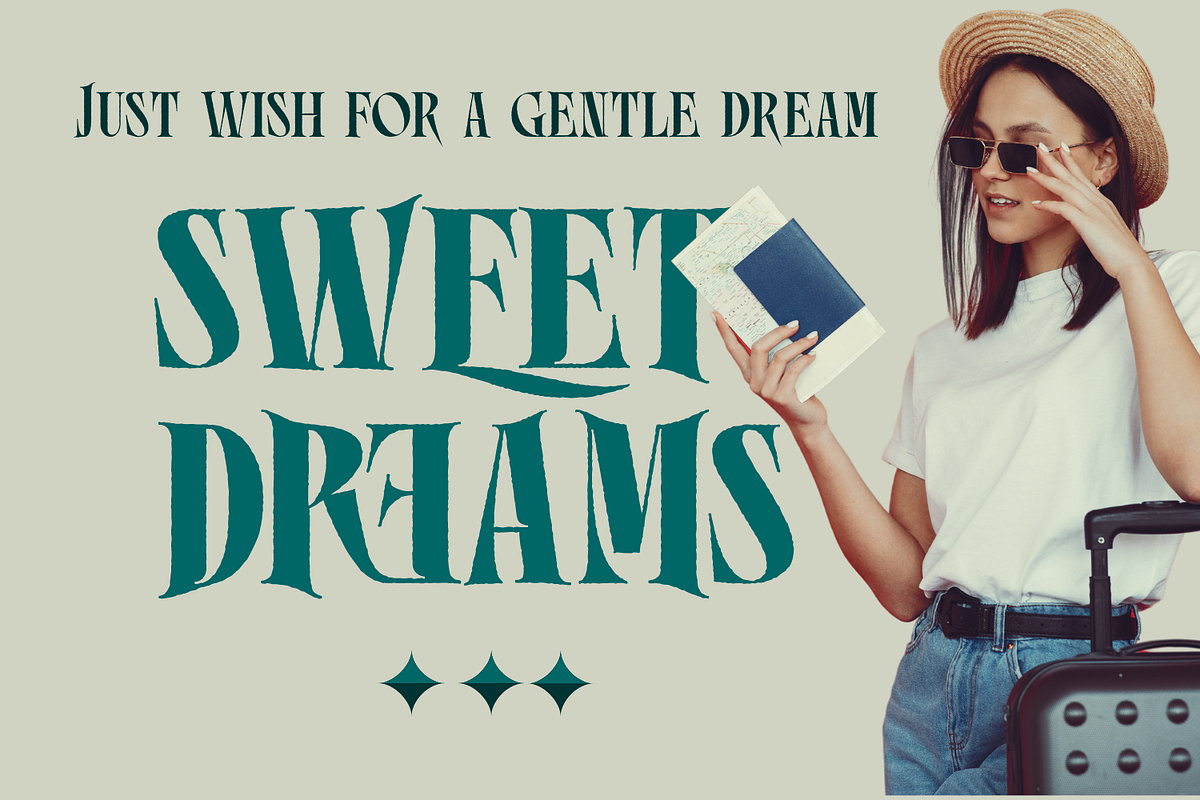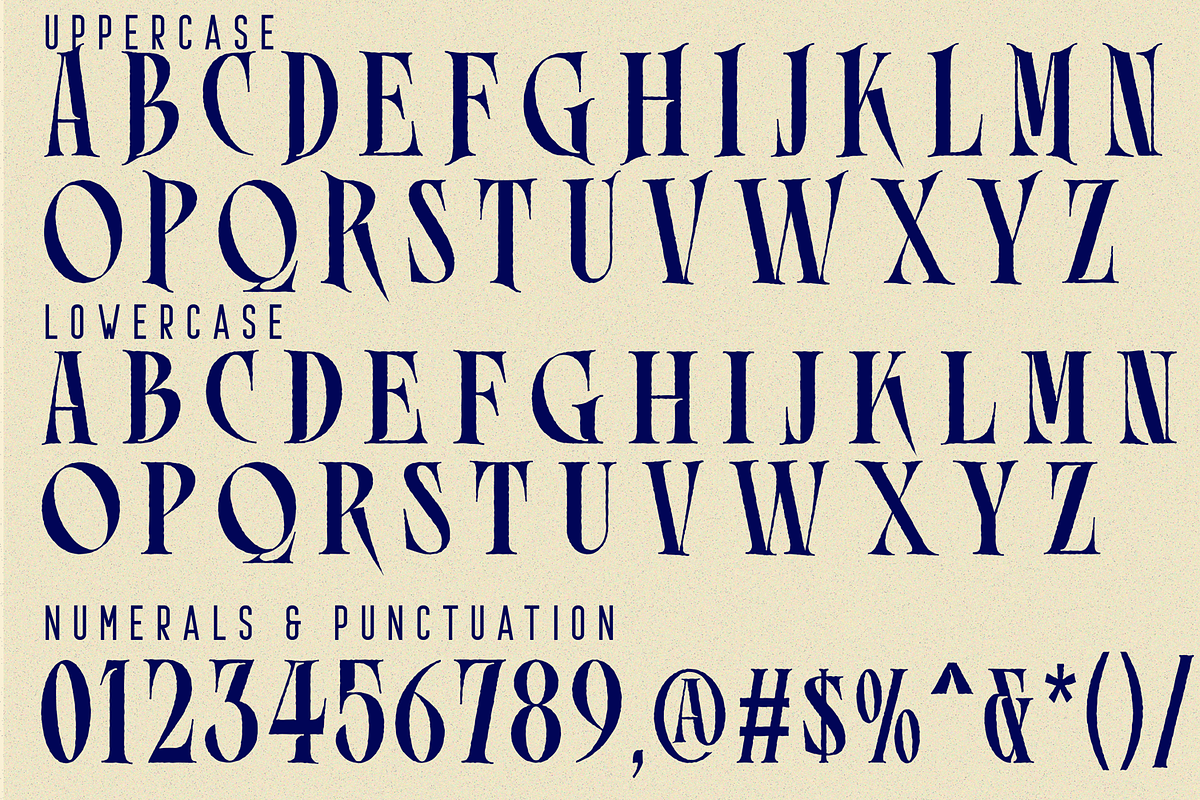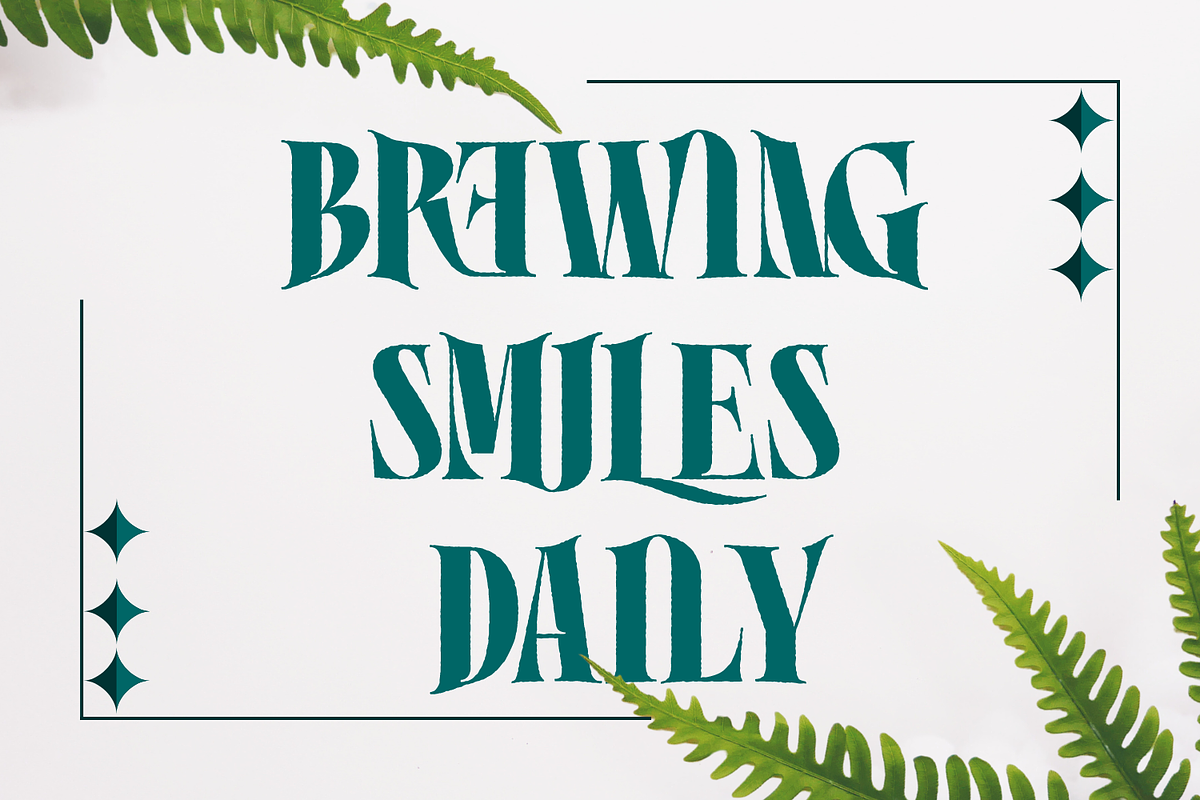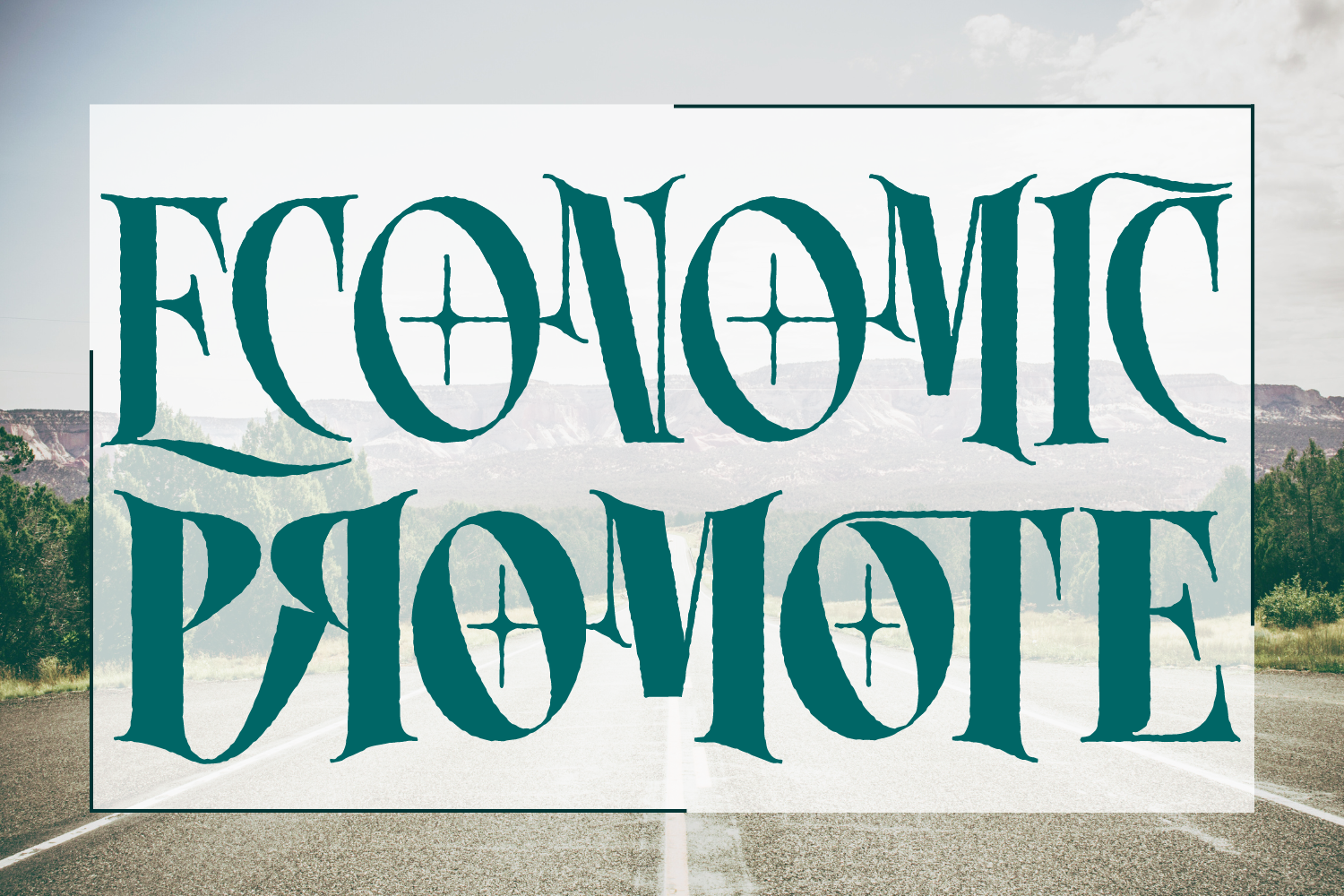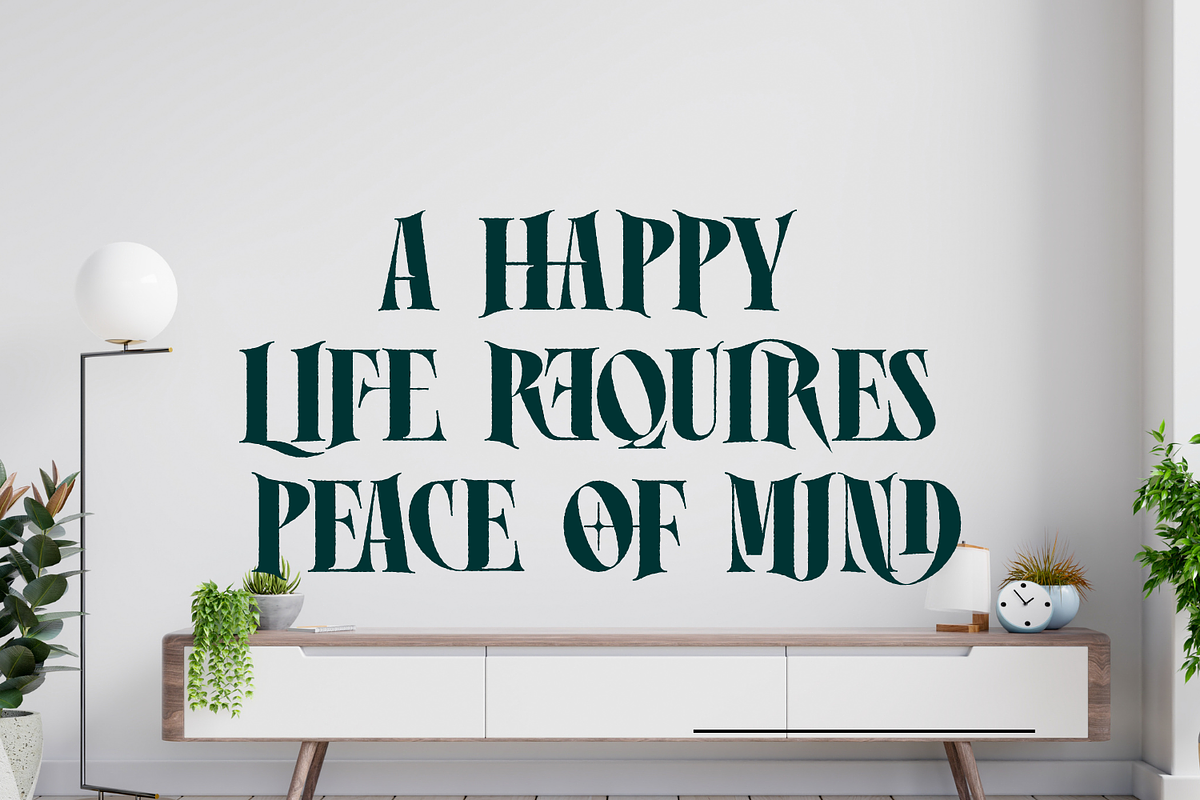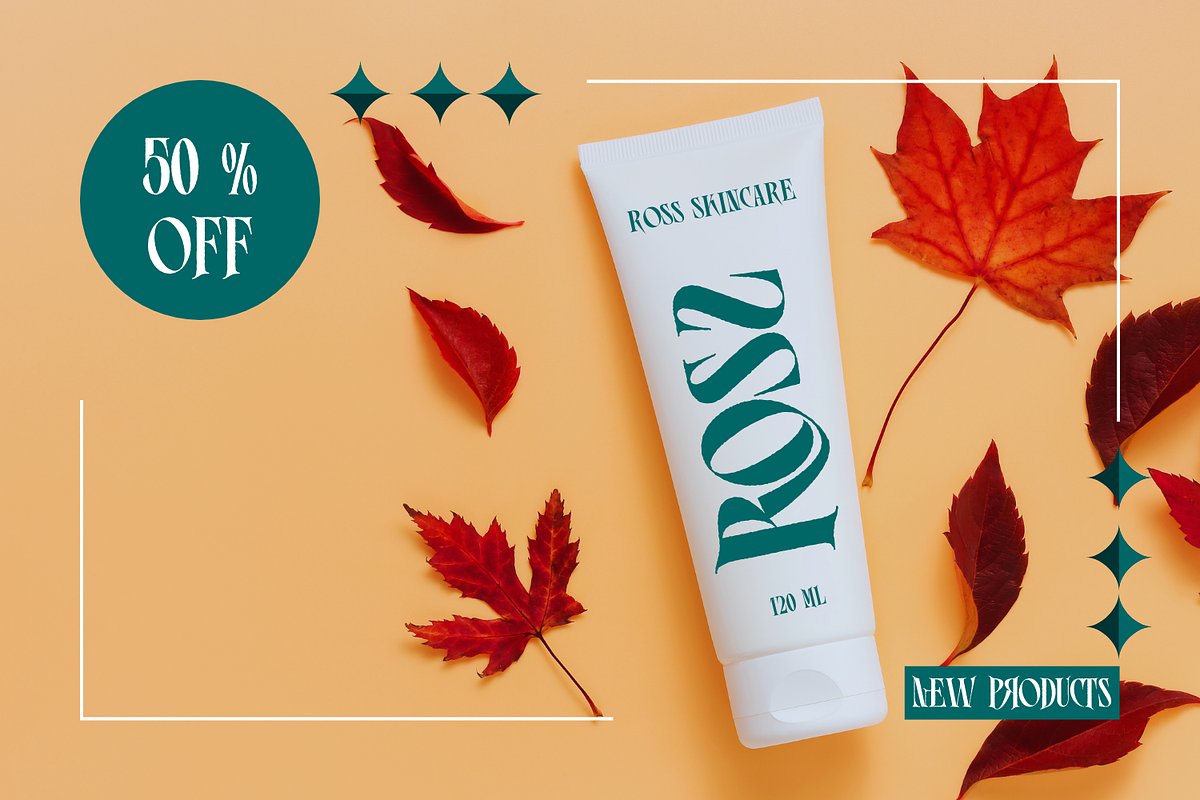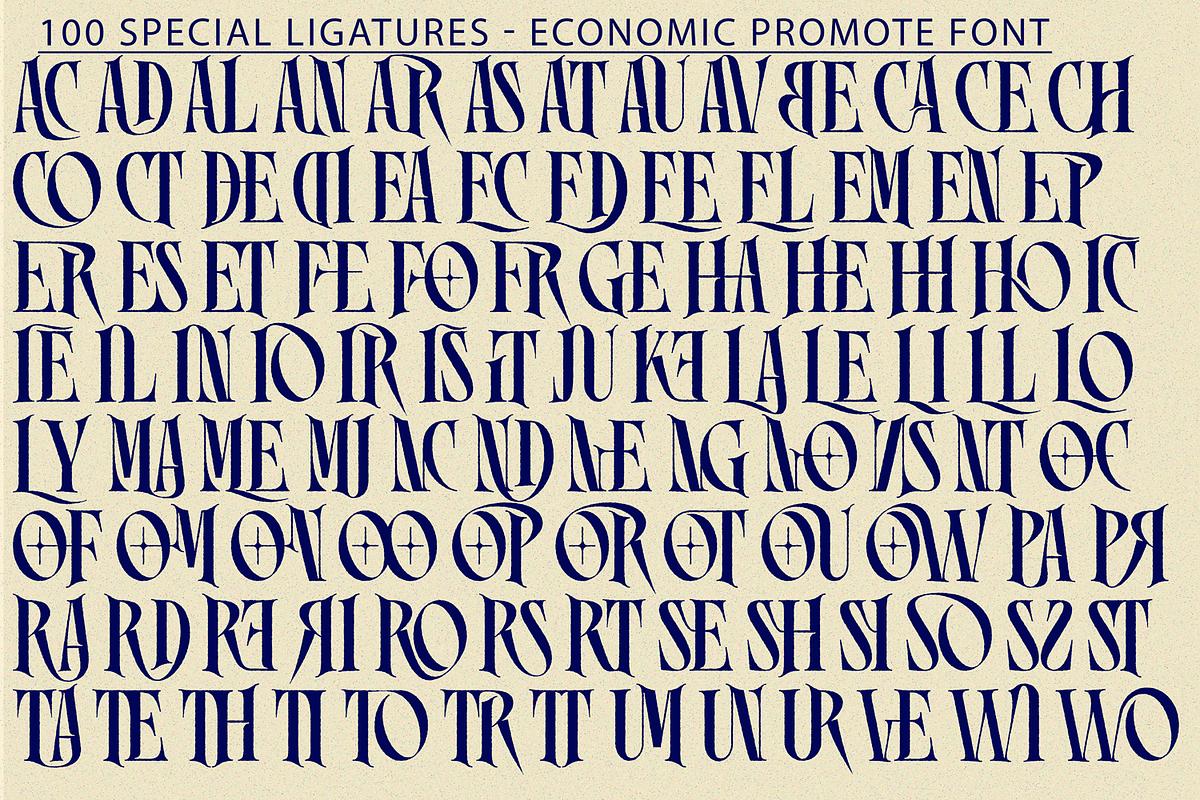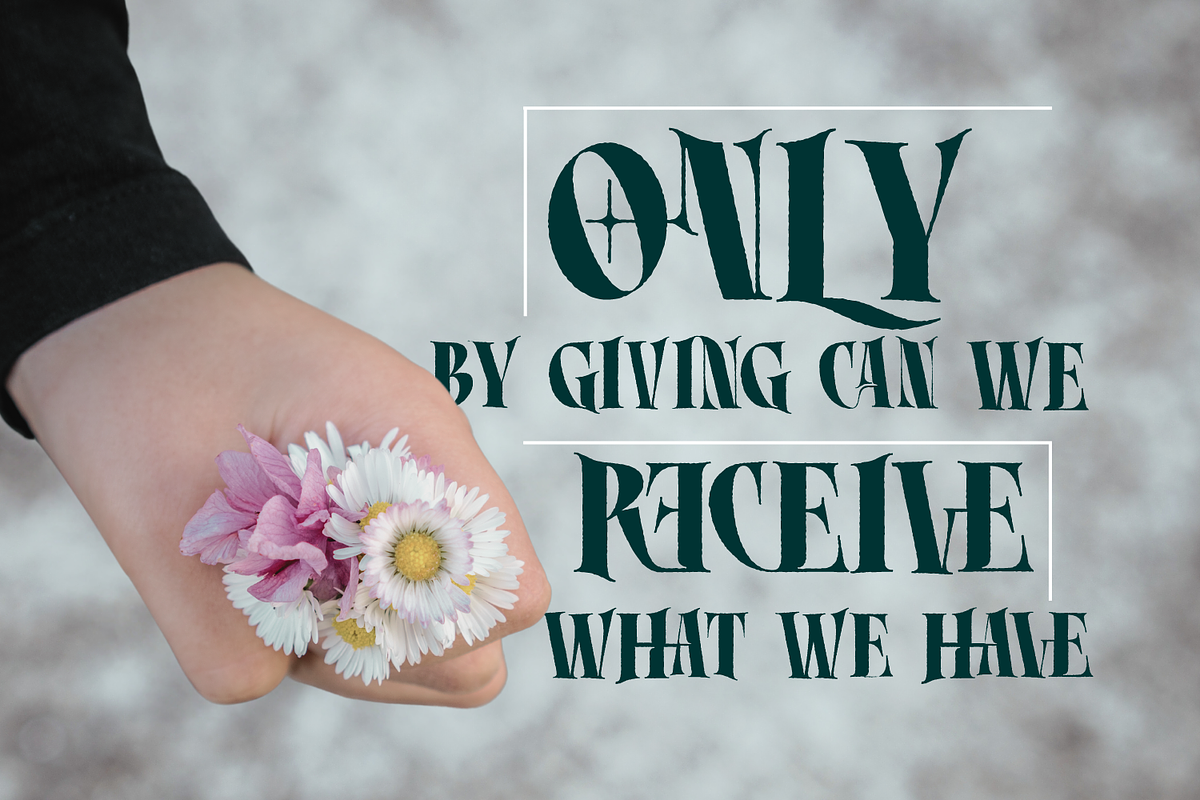
ECONOMIC PROMOTE FONT
ECONOMIC PROMOTE FONT - Classic Adventure Fantasy Pirate Game Font, a serif logo font with unique ligatures! This font is a serif based font with unique and carefully crafted ligatures that will make your logo stand out clean and modern. Suitable for any design needs : logo, branding, modern advertising design, halloween, gothic design, apparel, hardcore music, fantasy animation or movie, logos, adventure poster quote, game industry, music / band, book / cover Title, editorial design, website / blog, card, custom mug, pillow, t-shirts, and any gothic hand-lettered needs.
ECONOMIC PROMOTE was built with OpenType features and includes 100 ligatures, alternate, numbers, punctuation, and it also supports other languages.
AC AD AL AN AR AS AT AU AV BE CA CE CH CO CT DE DI EA EC ED EE EL EM EN EP ER ES ET FE FO FR GE HA HE HI HO IE IC IL IN IO IR IS IT JU KE LA LE LI LL LO LY MA ME MI NC ND NE NG NO NT NS OC OF OM ON OO OP OR OT OU OW PA PR RA RD RE RI RO RS RT SE SH SI SO SS ST TA TE TH TI TO TR TT UM UN UR VE WI WO
- Special Ligatures